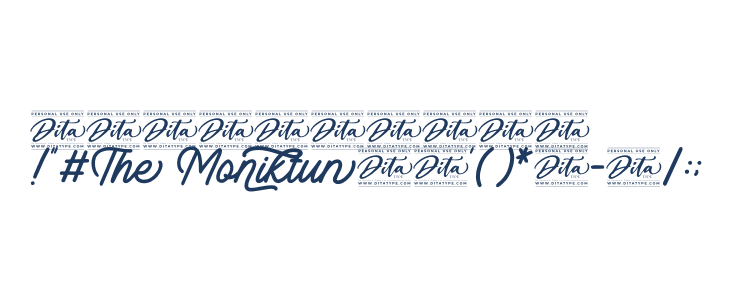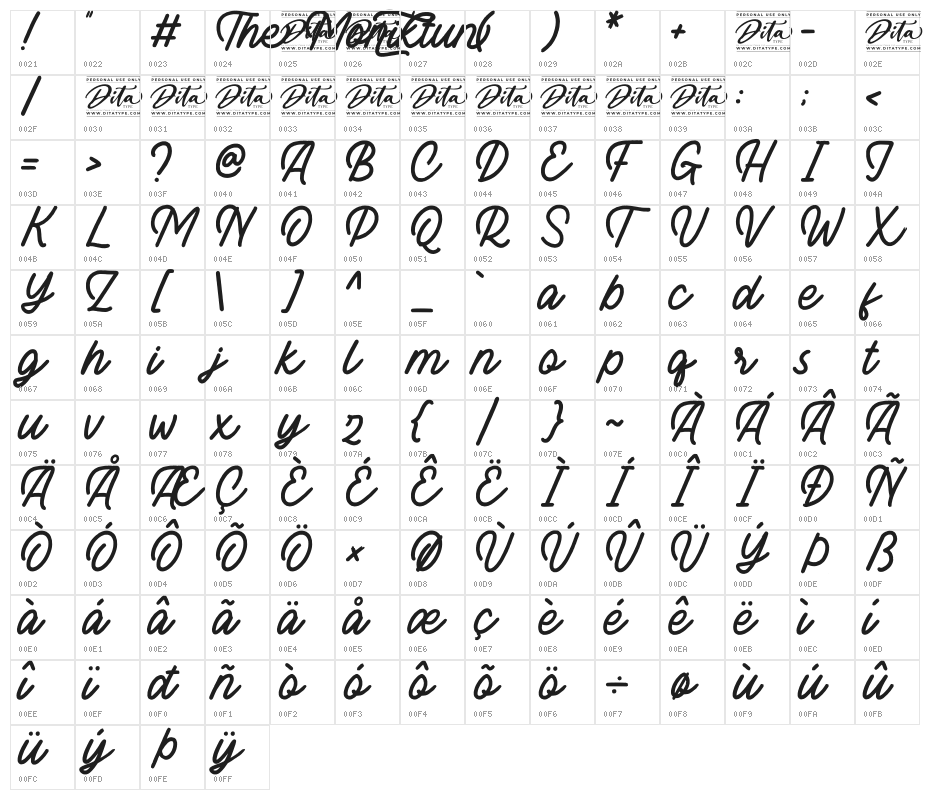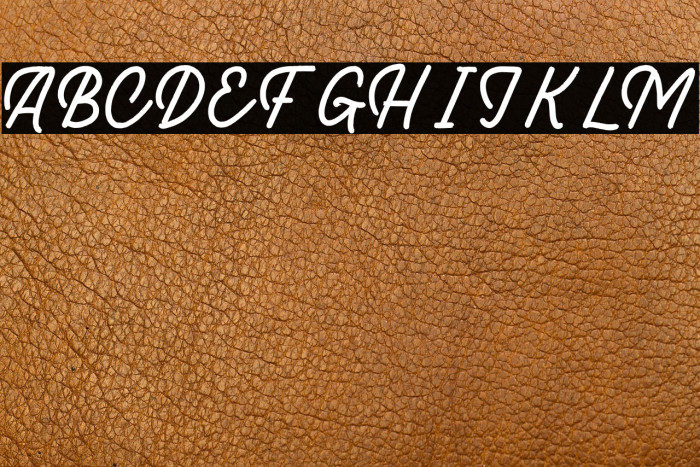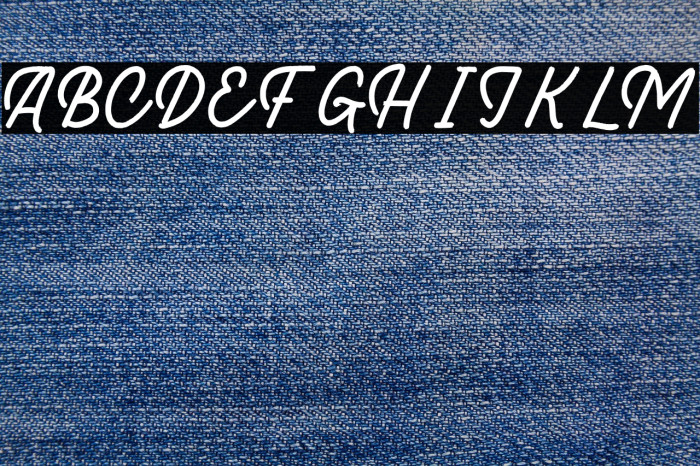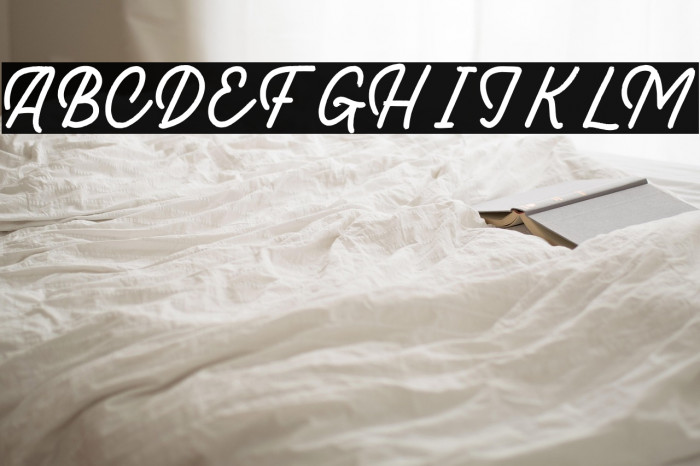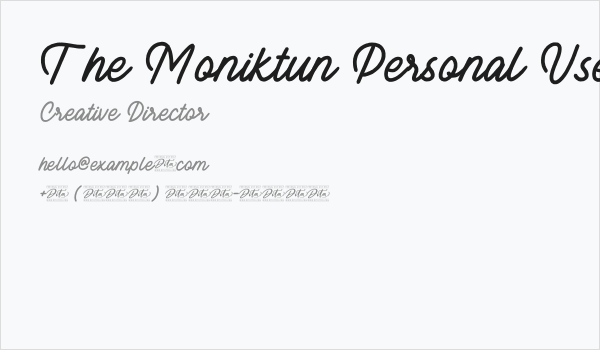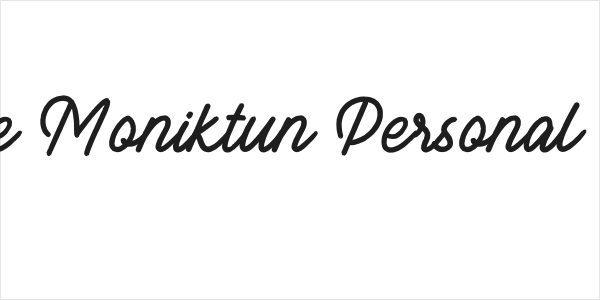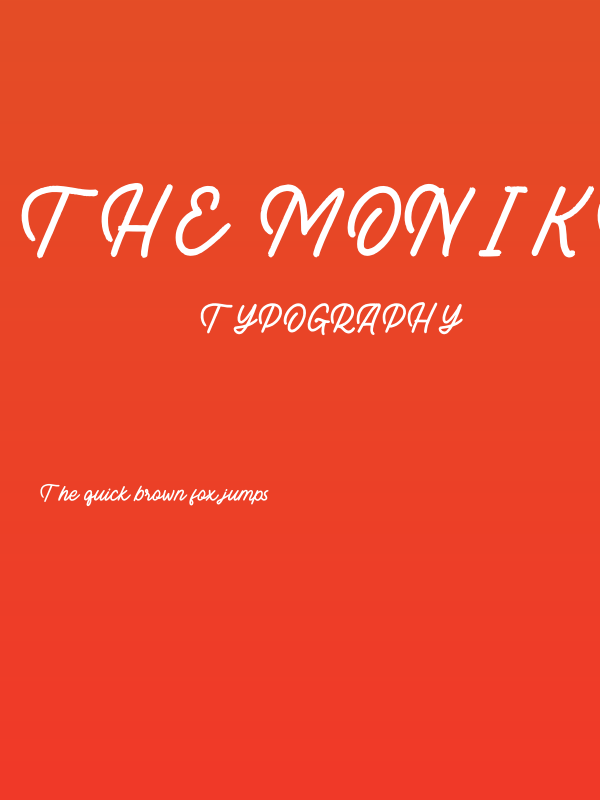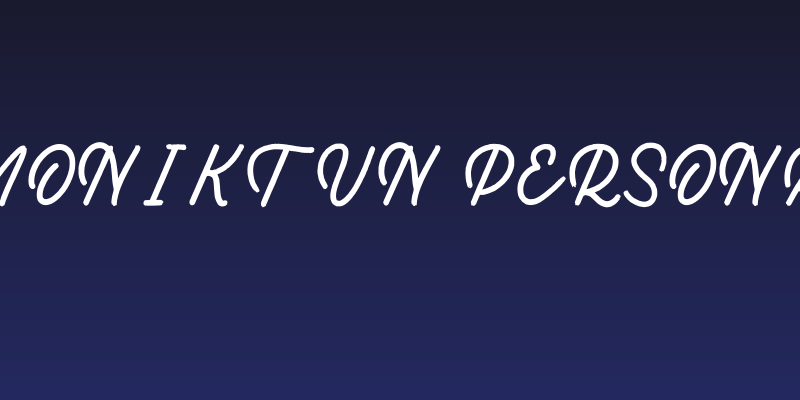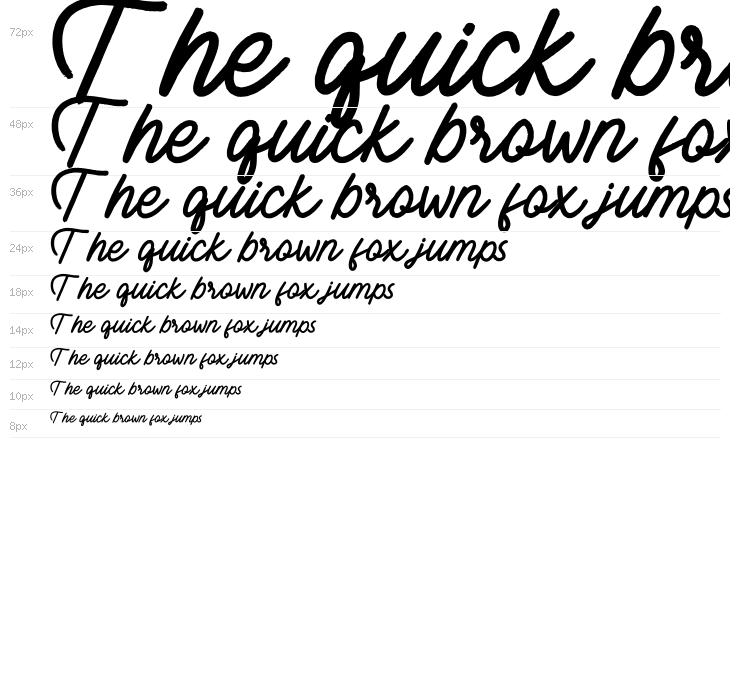
The Moniktun Personal Use Font
The Moniktun Personal Use Description
This font features a flowing, cursive style with a handwritten appearance. The letters are connected, creating a seamless and elegant look. The uppercase letters maintain a consistent height, while the lowercase letters have a slight slant, adding to the dynamic feel. The strokes are bold and confident, with a medium contrast between thick and thin lines. The overall design is modern yet retains a classic charm, making it versatile for various design needs.